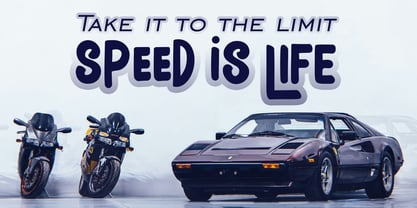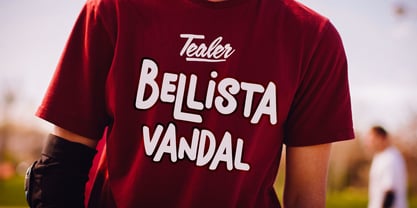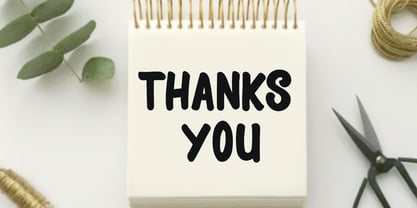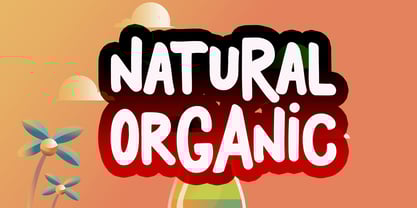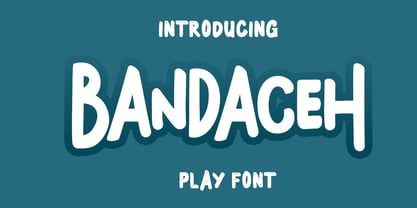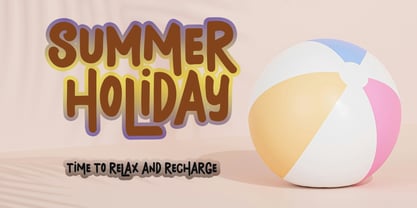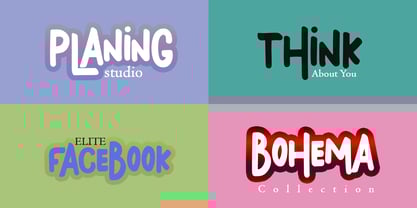
Bandaceh
by Sulthan Studio
The Bandaceh Font Family was designed by Nasrullah and published by Sulthan Studio. Bandaceh contains 1 styles.
Introducing an unparalleled display font that is sure to captivate your interest - a distinctive typeface that injects a sense of cool into any project. Whether you're drafting logos, creating striking titles, establishing brand names, designing apparel, developing stickers, or undertaking crafts, this modern, trend-setting font adds a fashionable edge and sophistication to all your creations. Think beyond basic, go for the extraordinary with this versatile wonder that gracefully caters to myriad aesthetics and possesses endless potential. Elevate your work and make a massive impact with this unique display font, your essential tool for innovative design projects and more.
Bandaceh